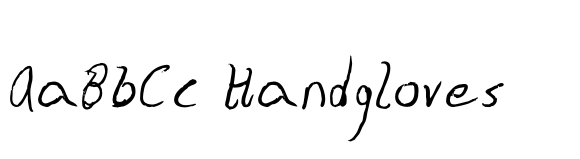
Ernst is a high powered energetic font designed to provide an interesting and authentic feel to text that needs the handwritten ballpoint pen look without descending into bland letter shapes focused solely on legibility. Ernst has a wide array of glyphs (nearly 1500) defined for many linguistic needs including support for Cyrillic, Runic, Ogham, and various Astronomical and Astrological symbols.